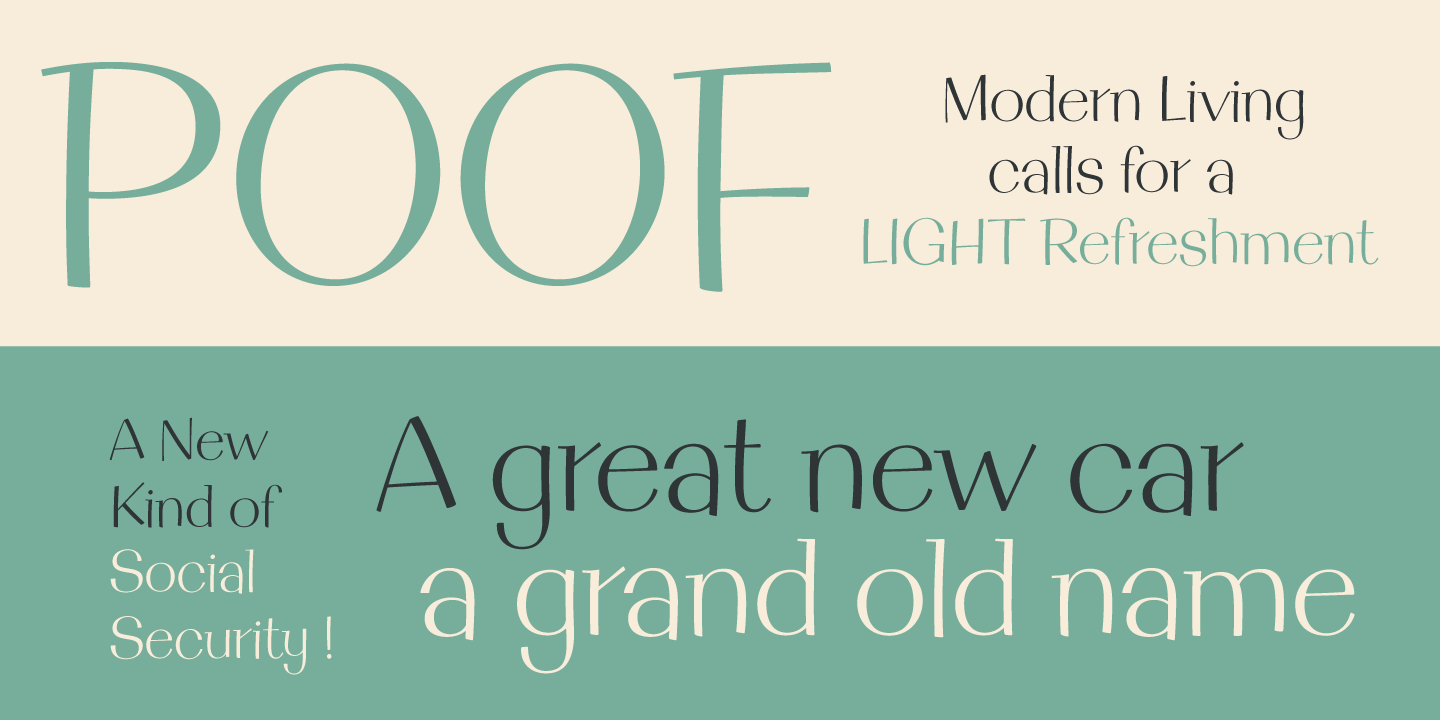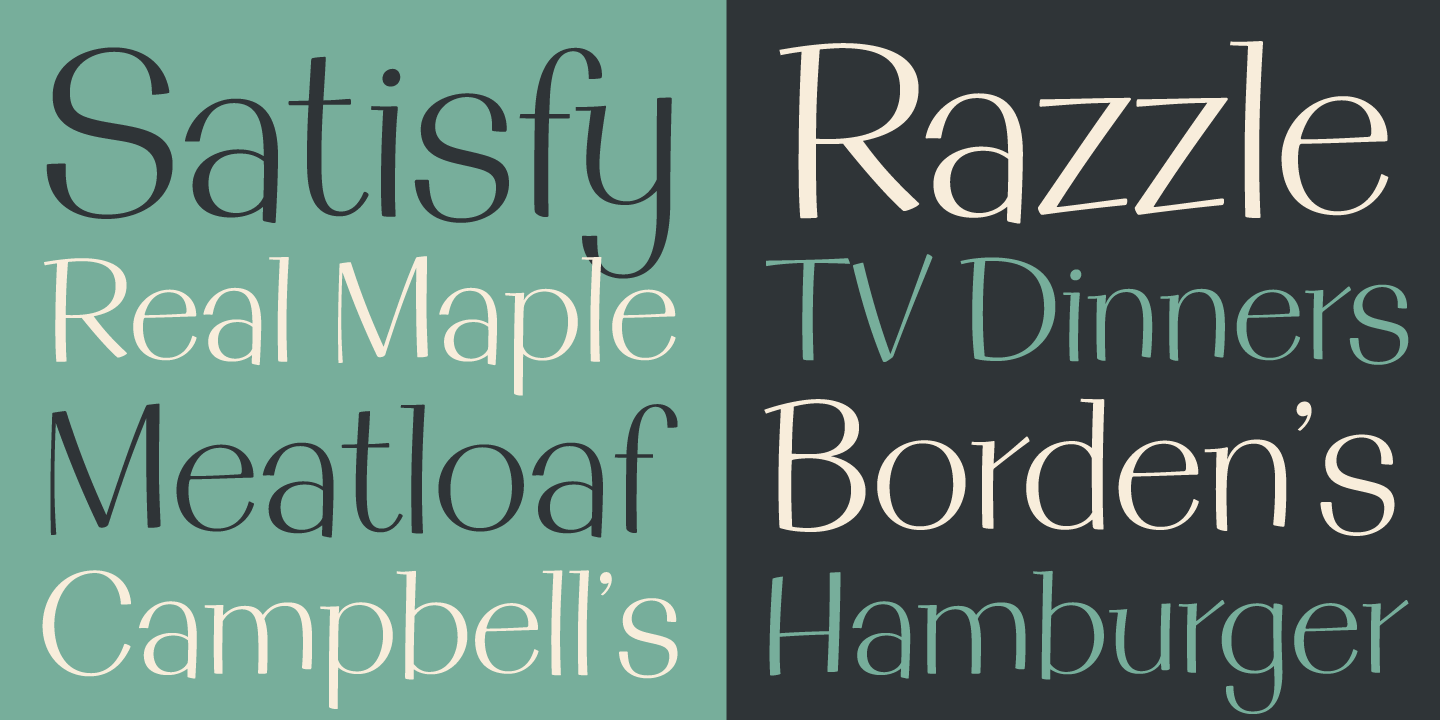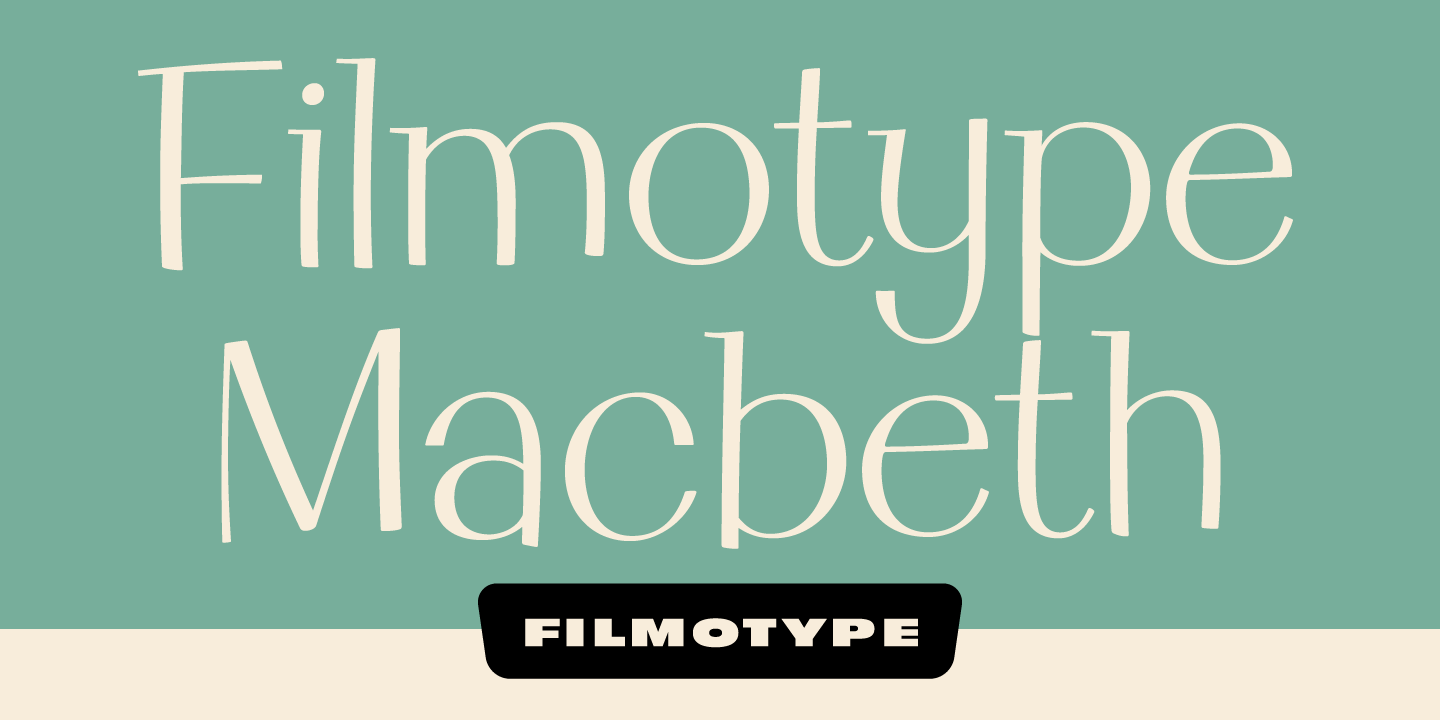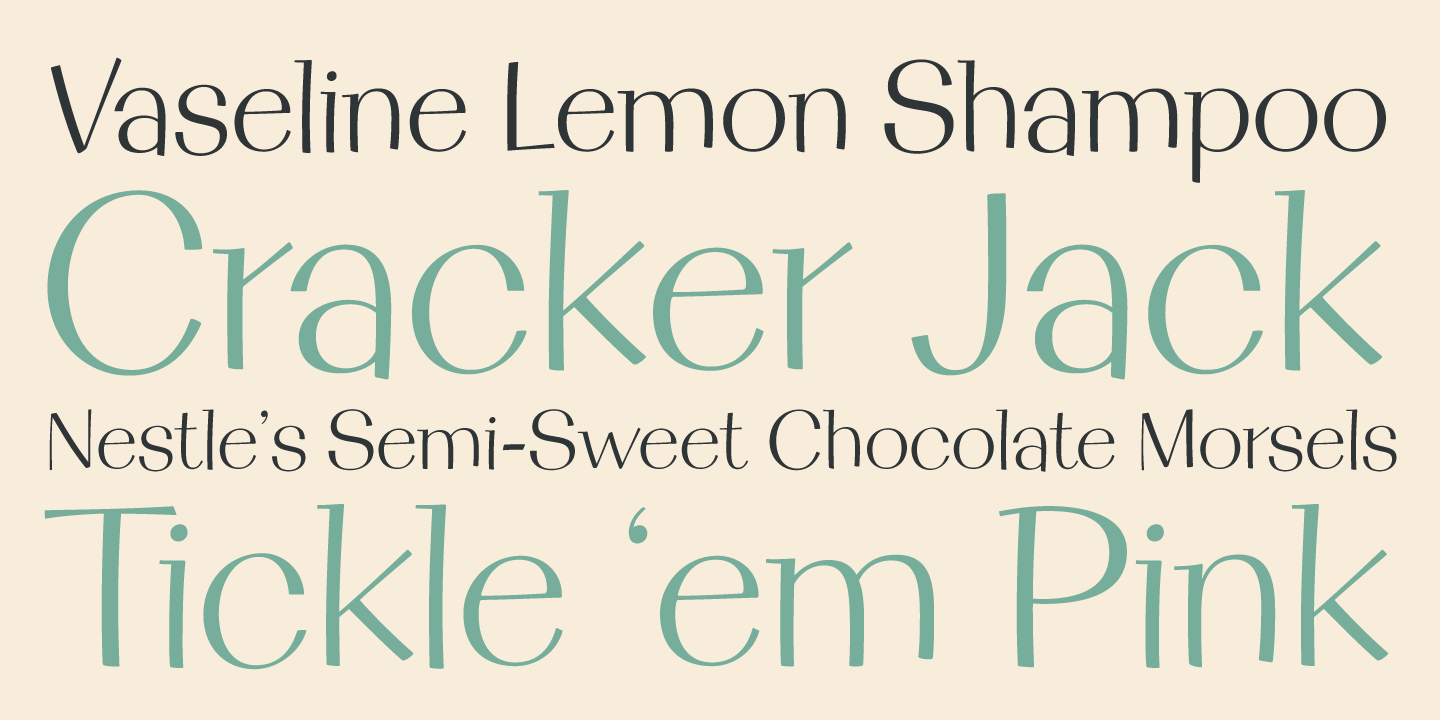
Filmotype MacBeth
About Filmotype MacBeth
This Free Style typeface owes its origins to Lettering Inc where its original author penned a similar style prior to creating a unique version of the typeface for Filmotype in the early 1950s. Filmotype MacBeth was remastered and expanded with exacting…